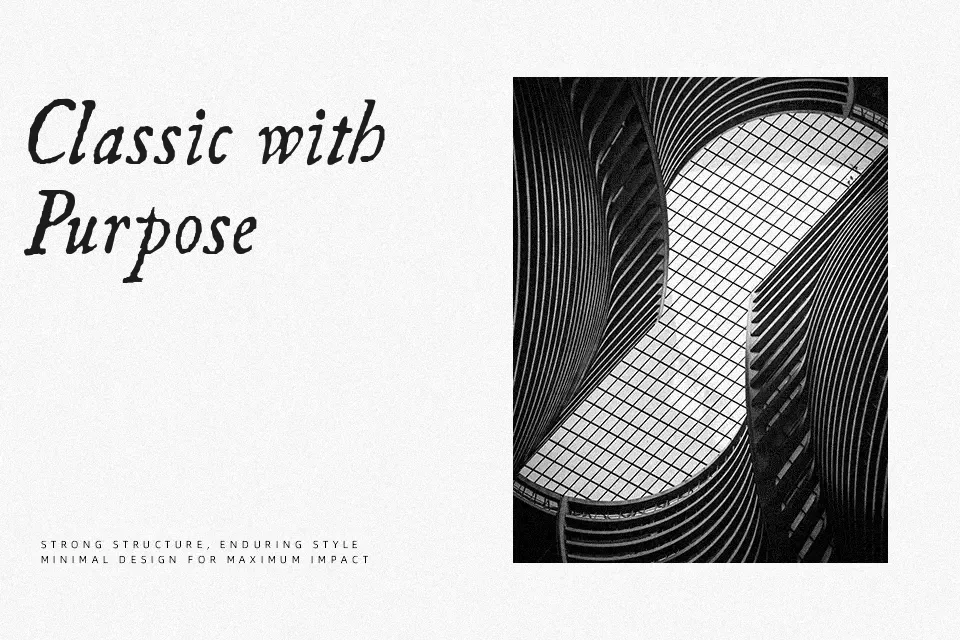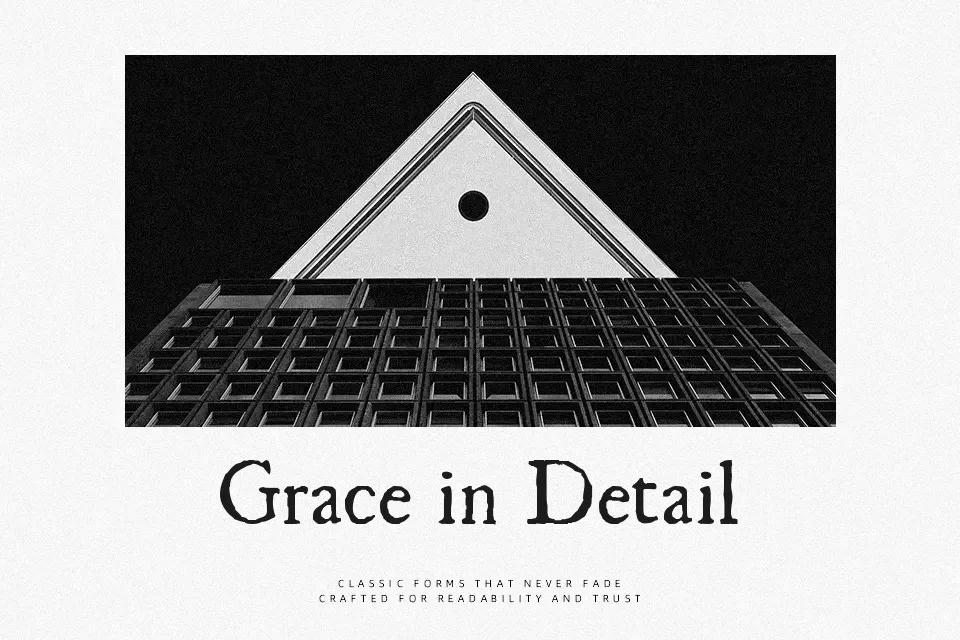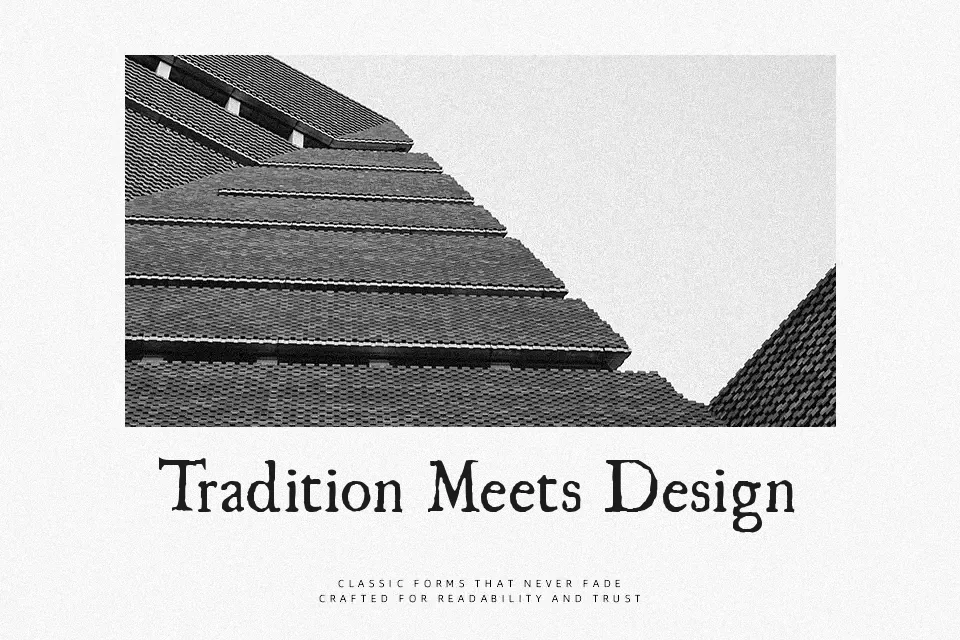
UglyQua Font
UglyQua Font showcases rugged, distressed serif letterforms inspired by seventeenth-century typography, marked by chipped serifs, irregular edges, and variable stroke thickness. The design features moderately condensed character proportions with slightly uneven, loose letter spacing that emphasizes a rough mechanical imprint. Strong visual contrast between heavy vertical stems and degraded hairline strokes produces tactile texture in prominent headlines and display signage. However, the heavy degradation and jagged contours substantially impair legibility when scaled down to smaller captions. Dense paragraphs quickly become difficult to navigate. The typeface performs best in large title settings where distinctive historical imperfections can be appreciated without sacrificing immediate reading comprehension.
Best For: historical book covers,vintage packaging labels,antique poster headlines,museum exhibition banners
Not Ideal For: long paragraph text,small interface labels,dense legal documents,mobile body copy
Perfect for headline, logo, and packaging, with a ancient and decorative style.